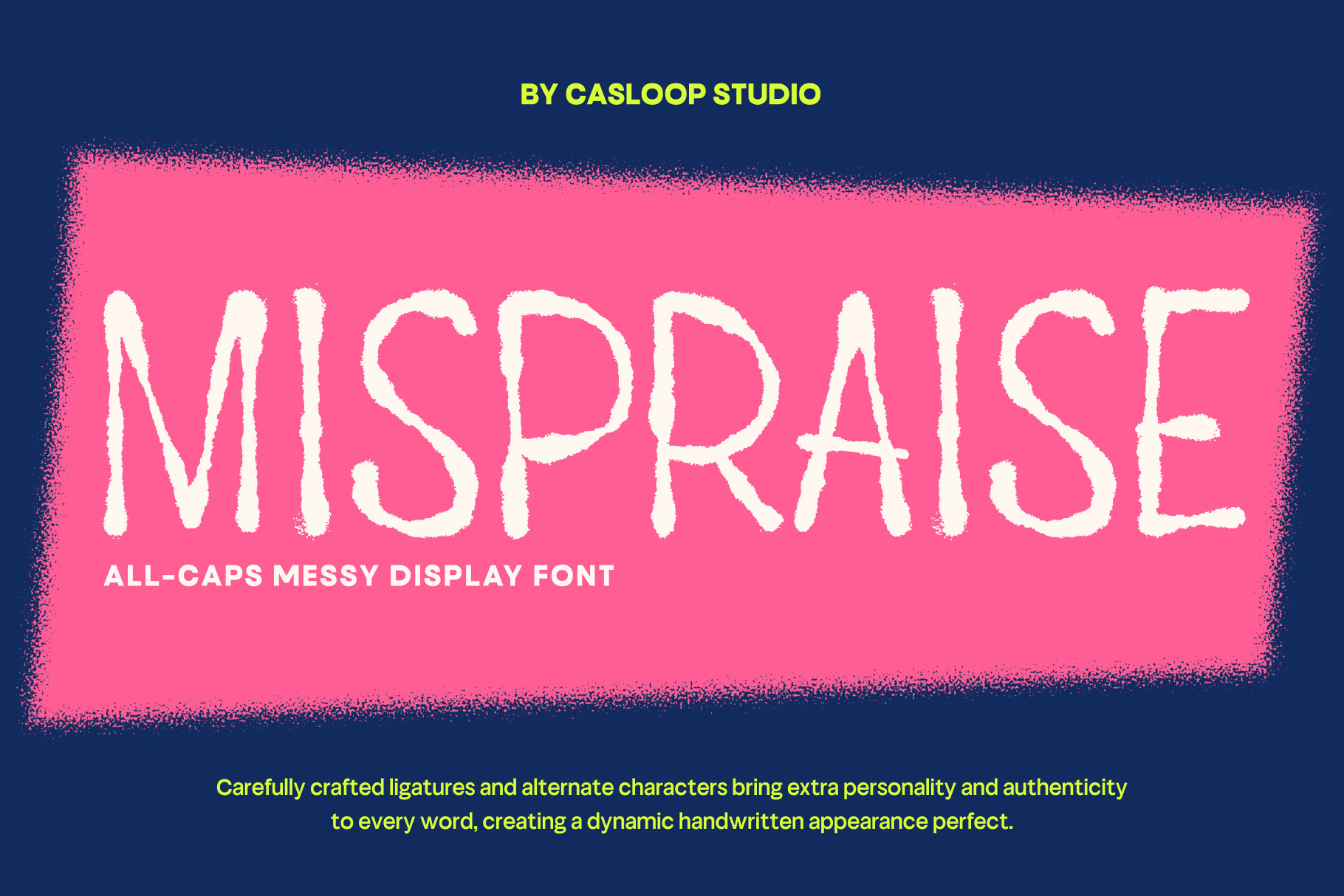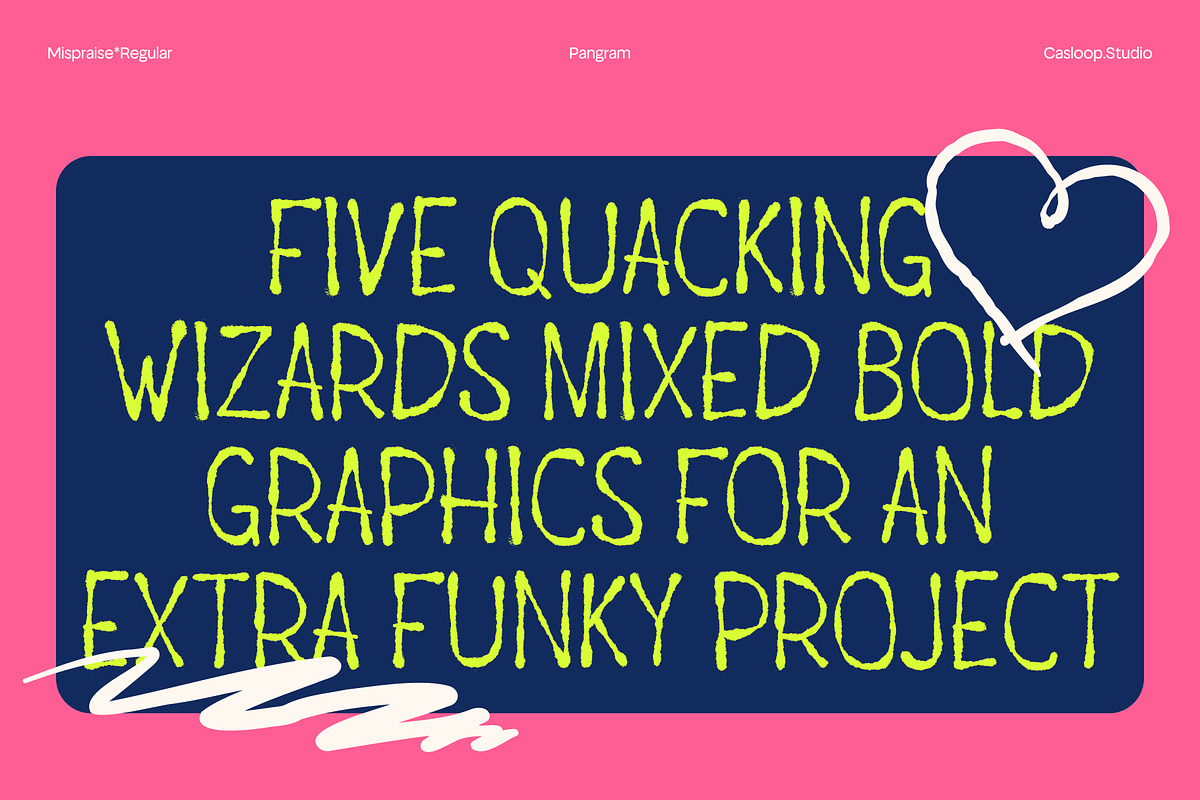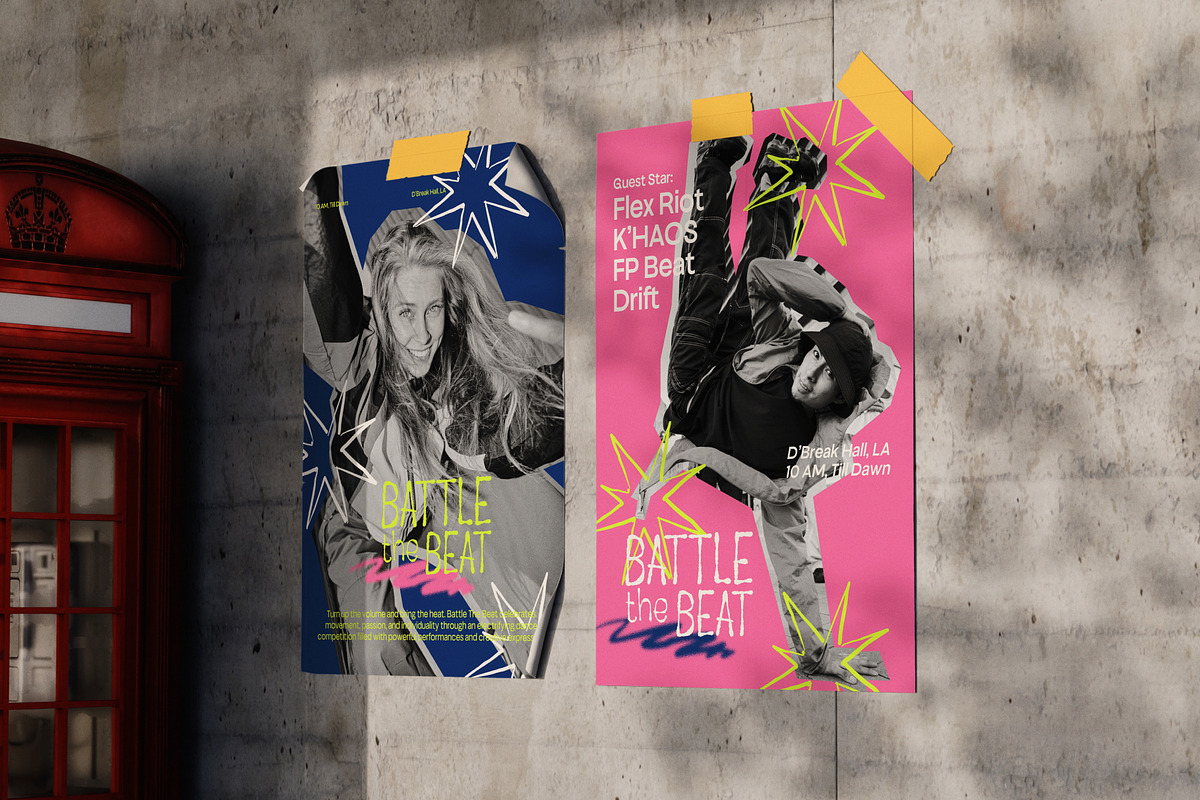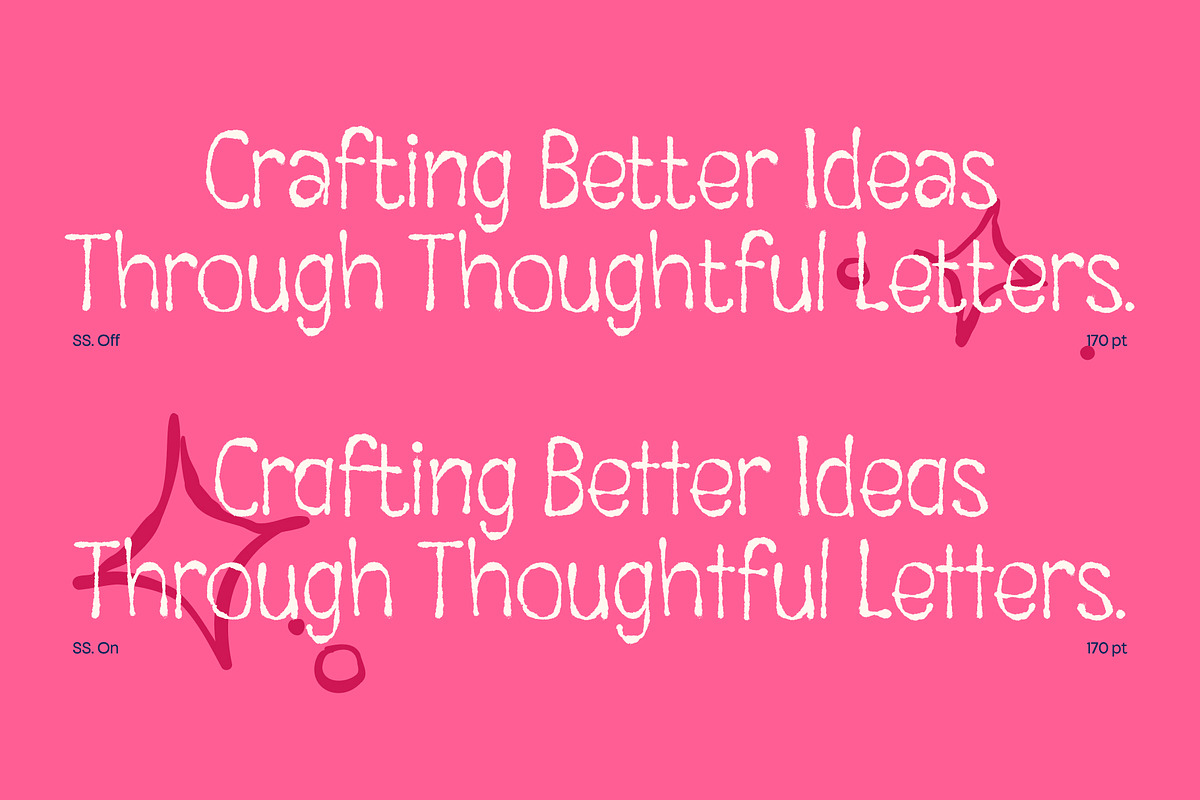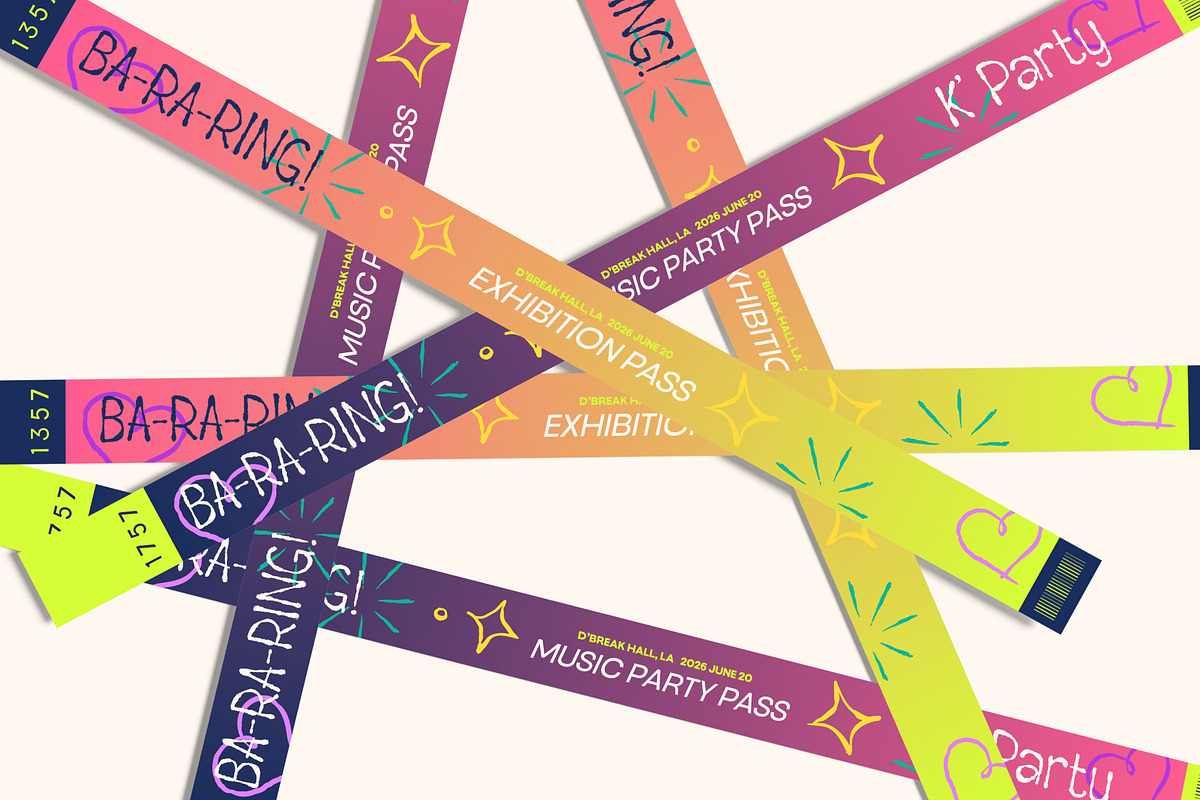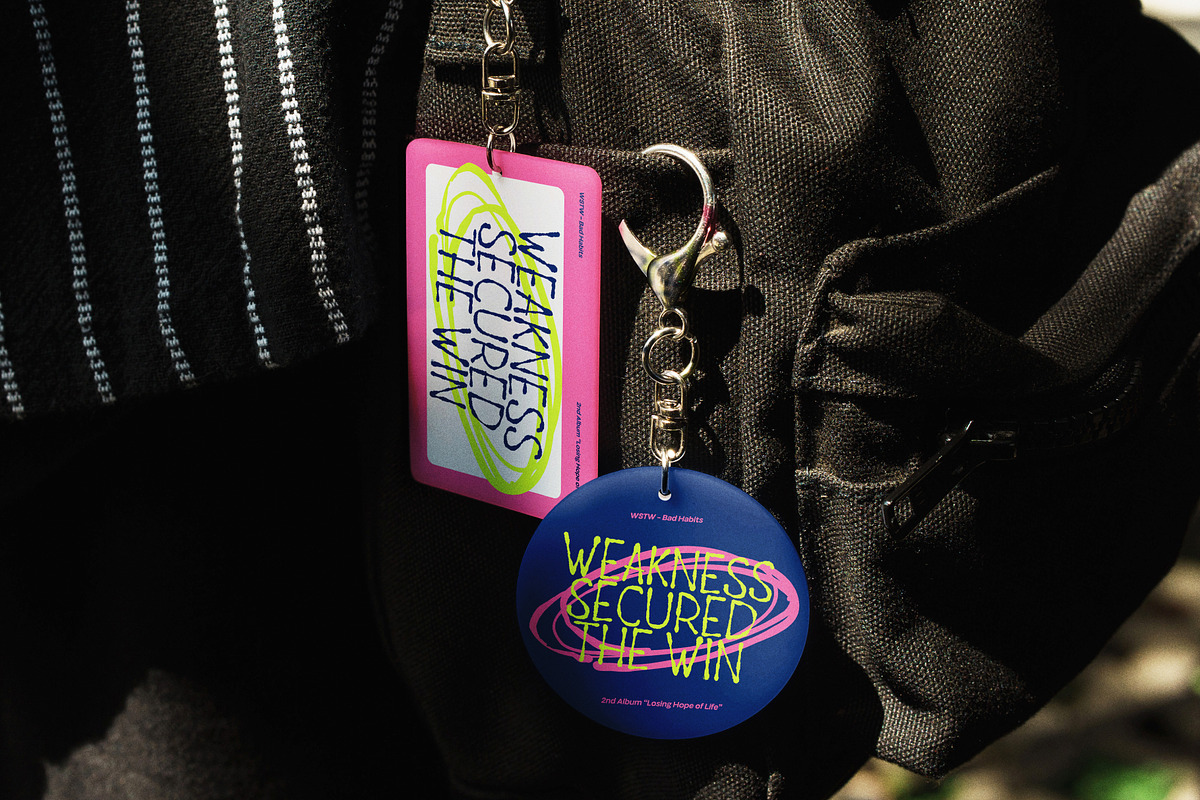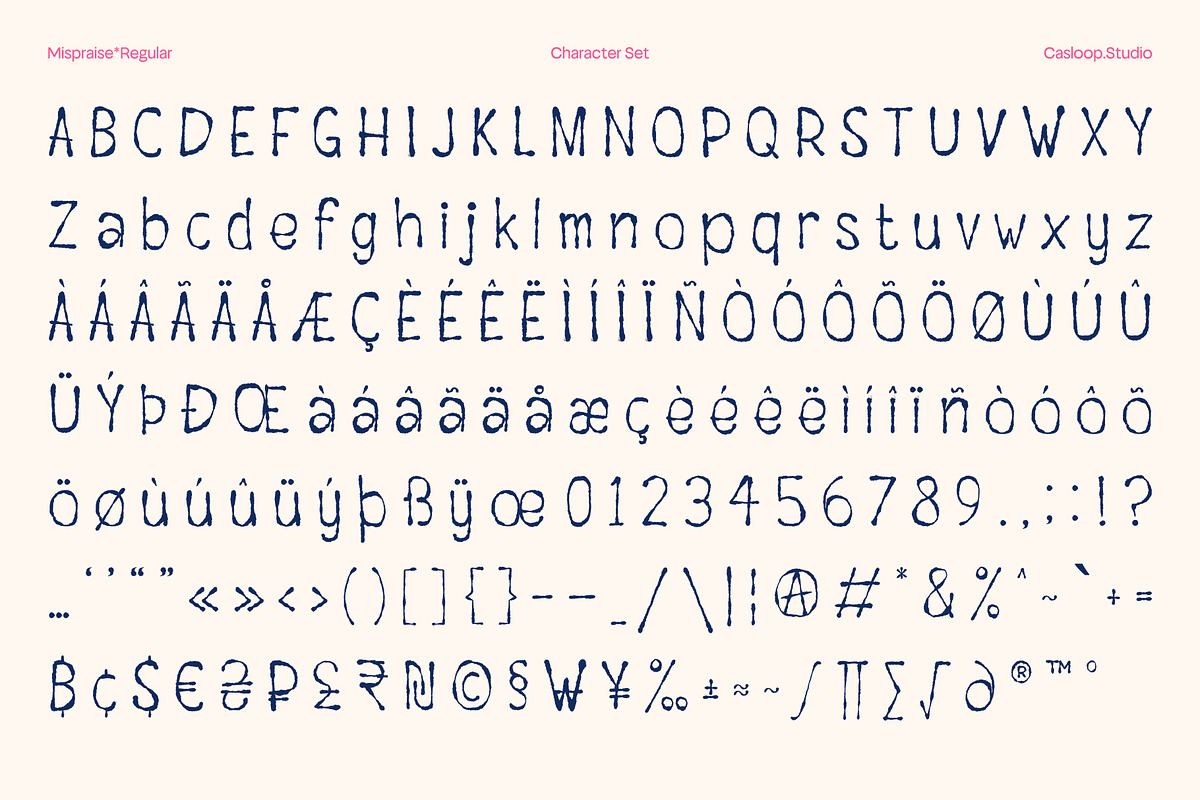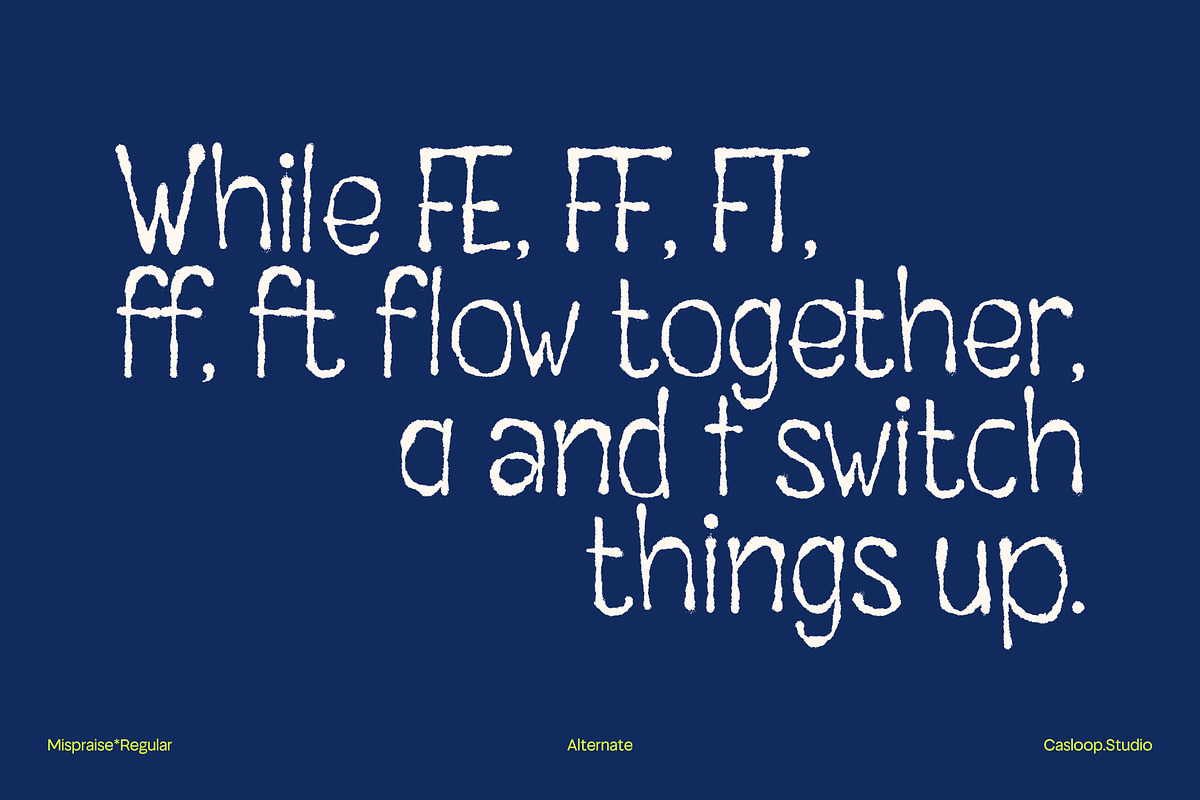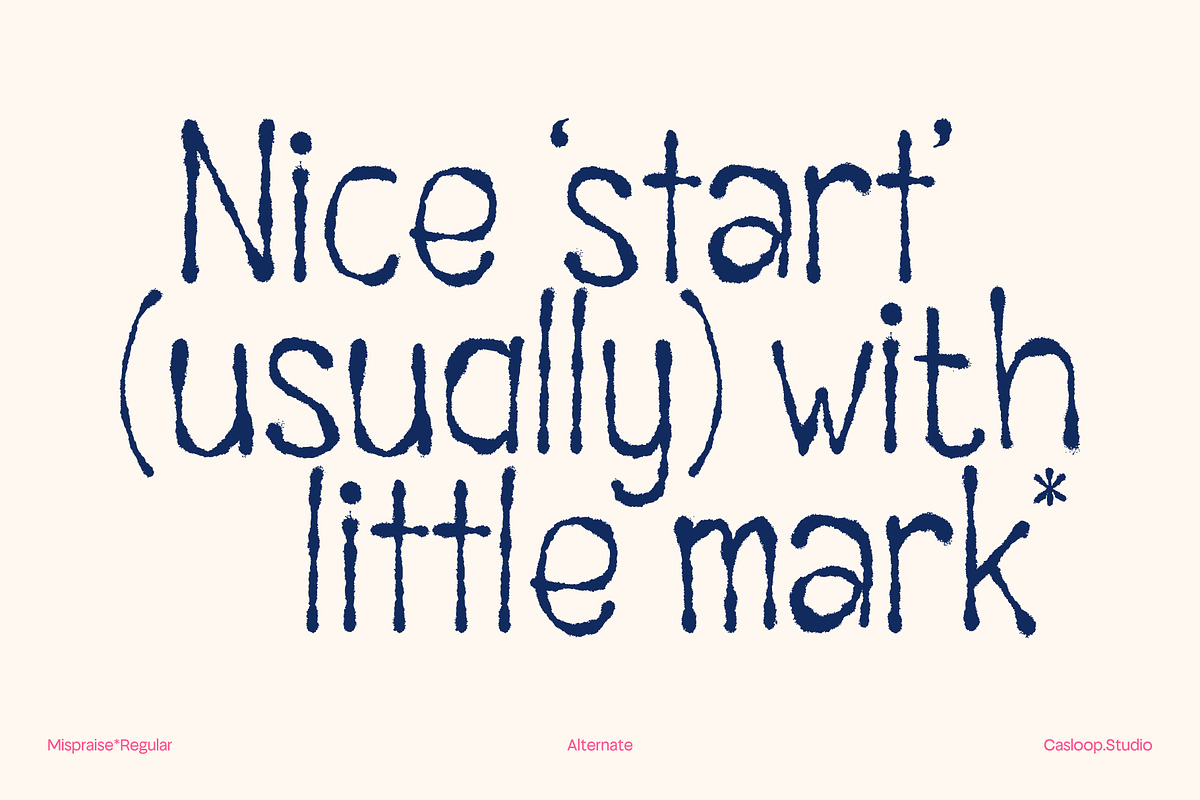
Mispraise – Marker All-Caps Font
Mispraise is a marker all-caps display font that captures the spontaneity of handwritten lettering with the confidence of bold headline typography. Its defining characters M, A, R, S, E, and T feature tall proportions, imperfect marker strokes, and organic forms that feel free-flowing while maintaining excellent readability. This expressive balance gives the typeface a youthful, energetic personality, making every word feel personal, authentic, and full of motion. Whether used for creative agency branding, promotional campaigns, posters, notes, or signature-style headlines, Mispraise delivers a handcrafted visual impact that feels modern, approachable, and unmistakably bold. Recommended pairing with: Anton, Barlow Condensed, Archivo, Helvetica Neue, Trade Gothic, Franklin Gothic
Uppercase & Lowercase,
Numbers and punctuation,
Ligatures & Stylistic Alternates Characters
Multilingulal Support :
Bosnian, Catalan, Czech, Danish, German, English, Spanish, Estonian, Finnish, French, Irish, Croatian, Hungarian, Icelandic, Italian, Lithuanian, Latvian, Dutch, Norwegian, Polish, Portuguese, Romanian, Slovak, Slovenian, Albanian, Swedish, Turkish.